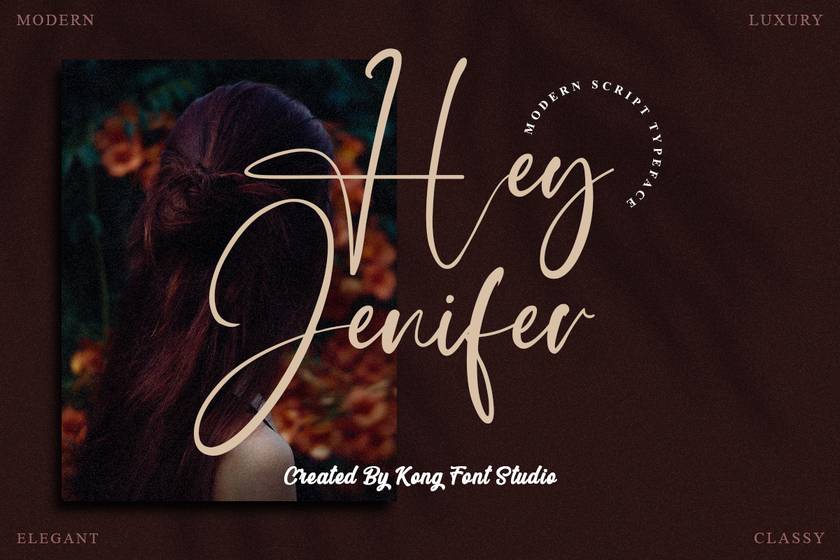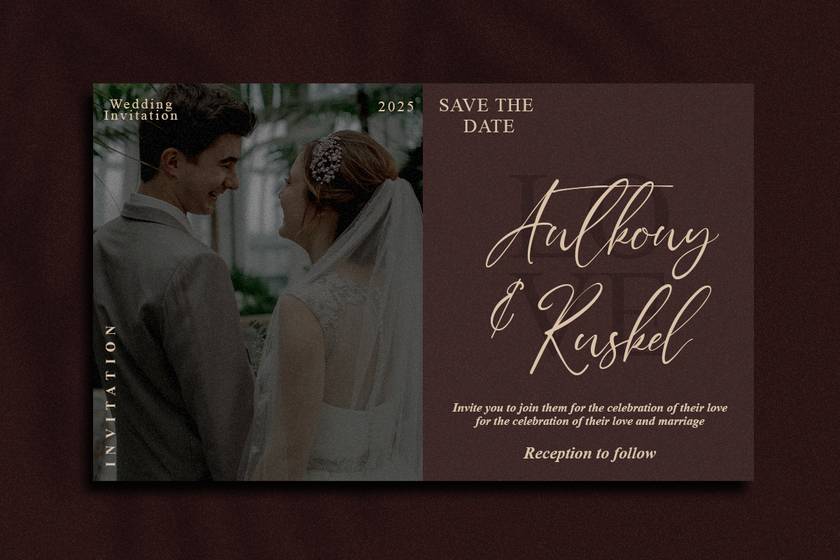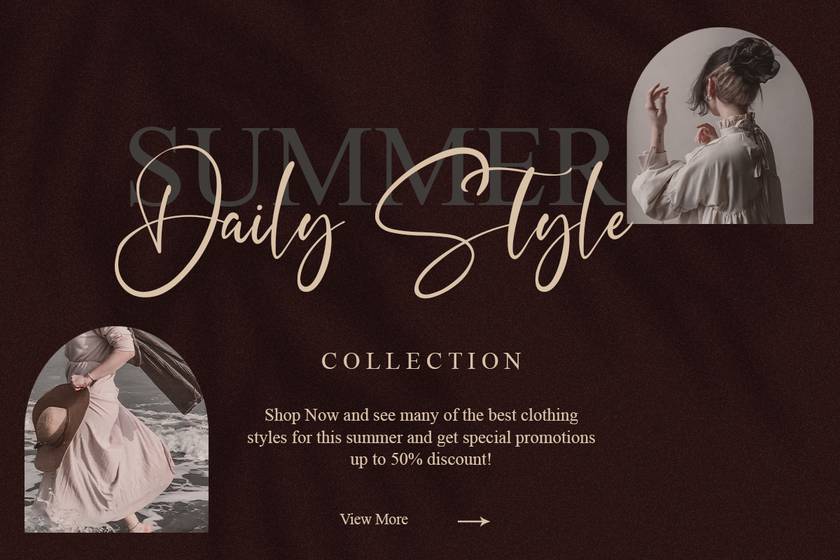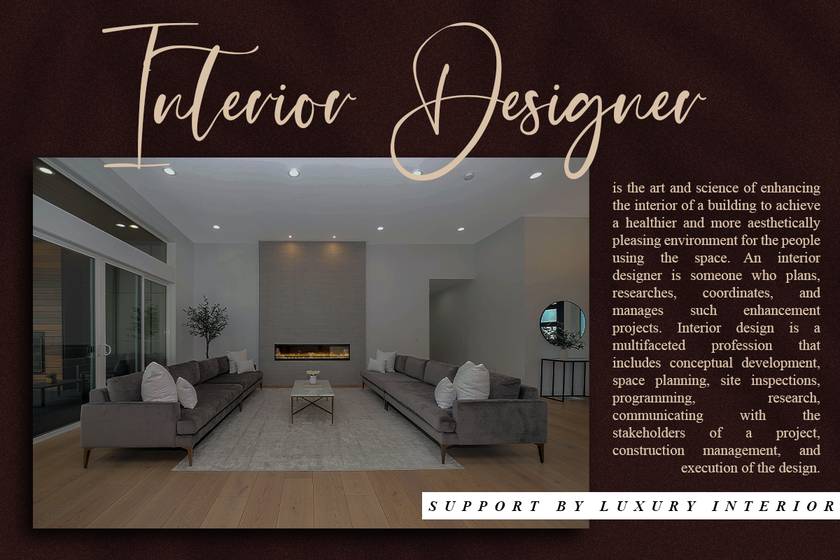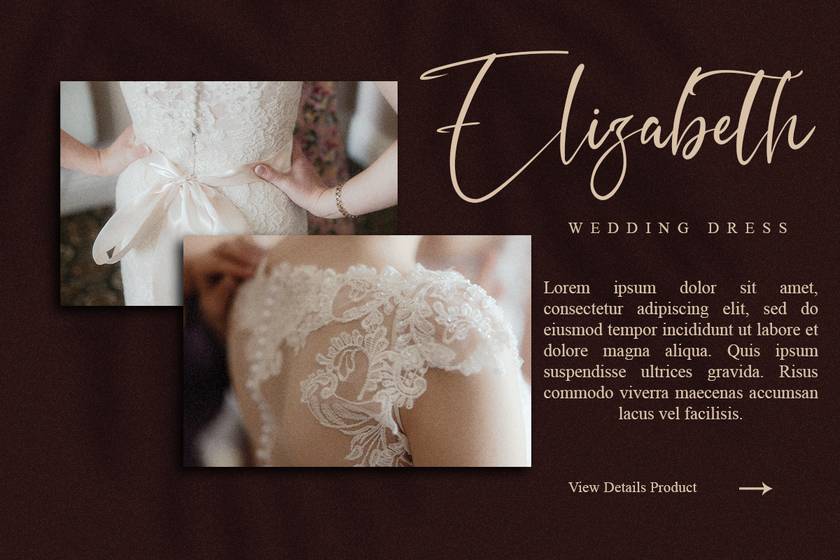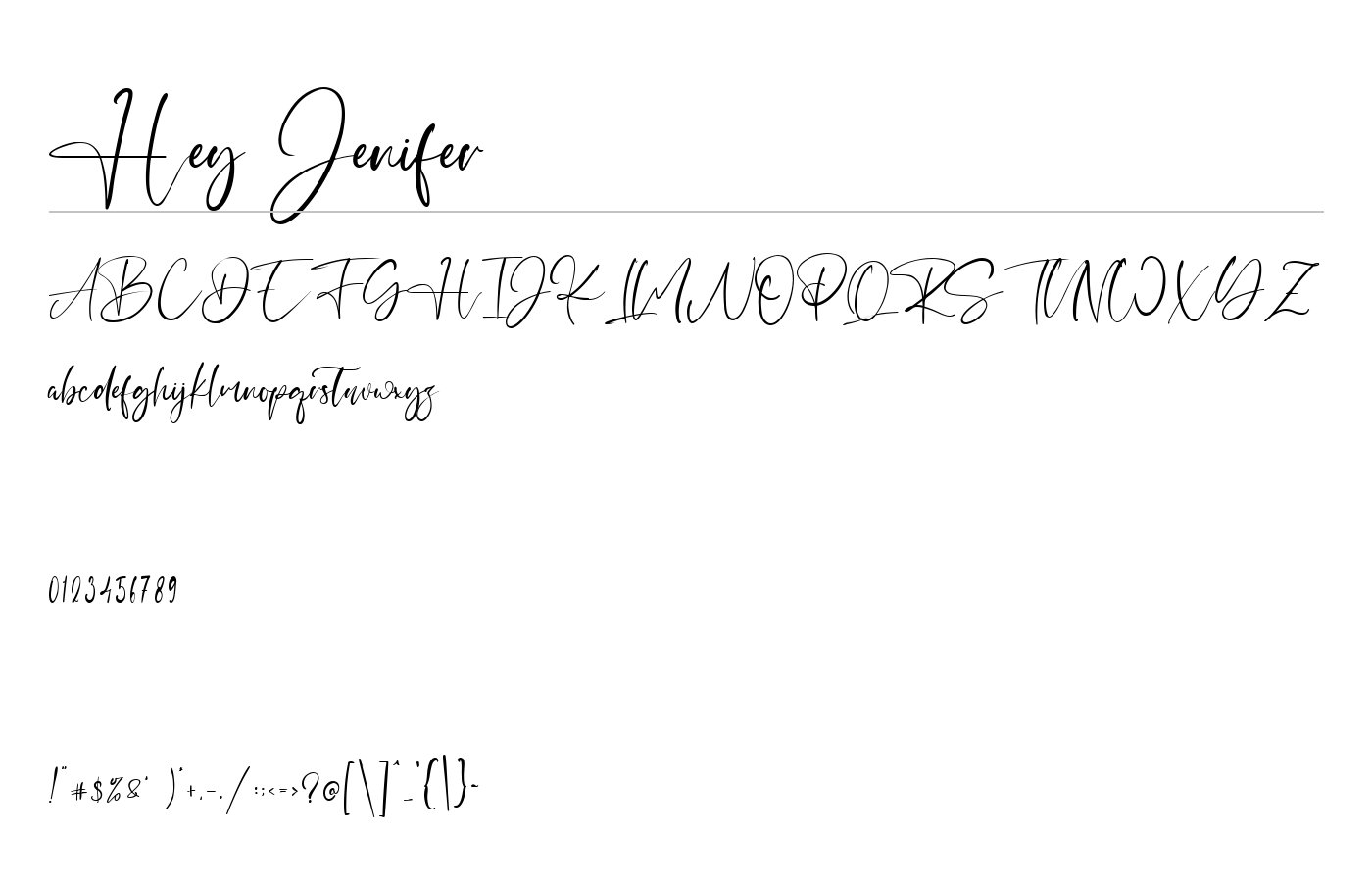
Hey Jenifer is an elegant, delicate script font with thin, flowing strokes that emulate natural handwriting. Its high contrast and slender letterforms give it a graceful, refined personality, making it ideal for luxury branding, invitations, and feminine design projects where a personal and sophisticated touch is desired. This font works best in headlines and logos, adding charm and style with its airy, artistic flair.
Hey Jenifer Font
About Hey Jenifer Font